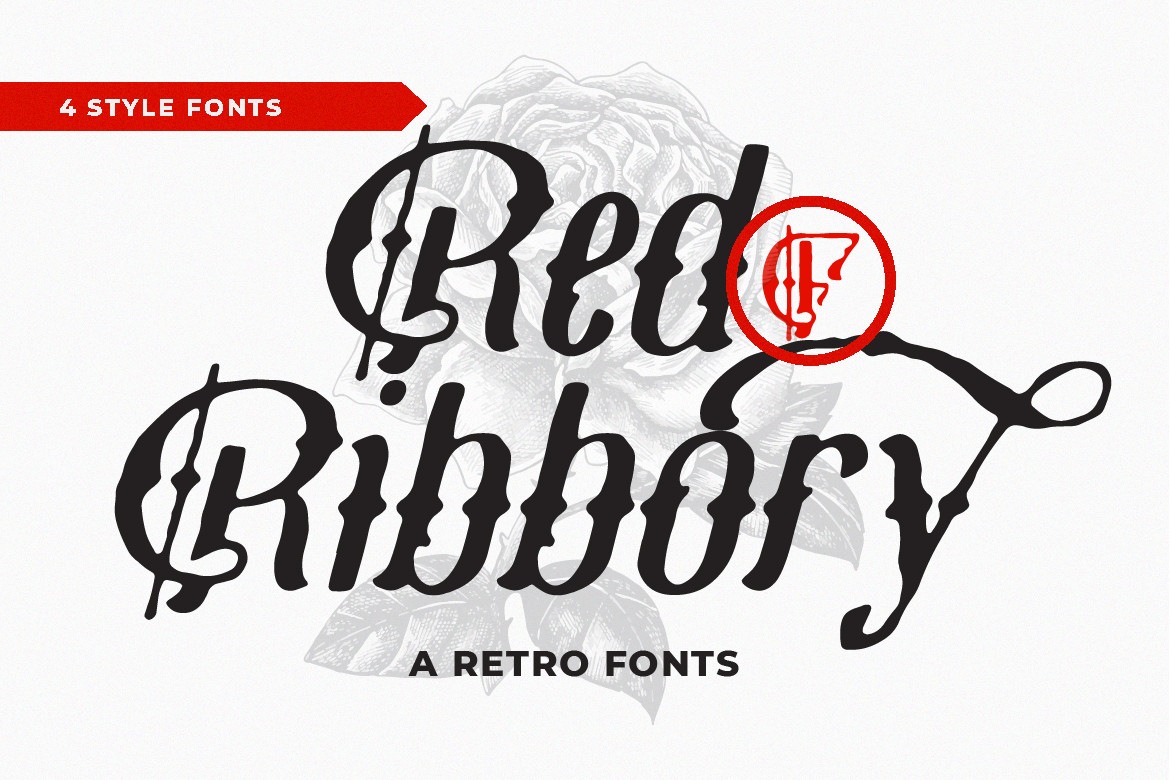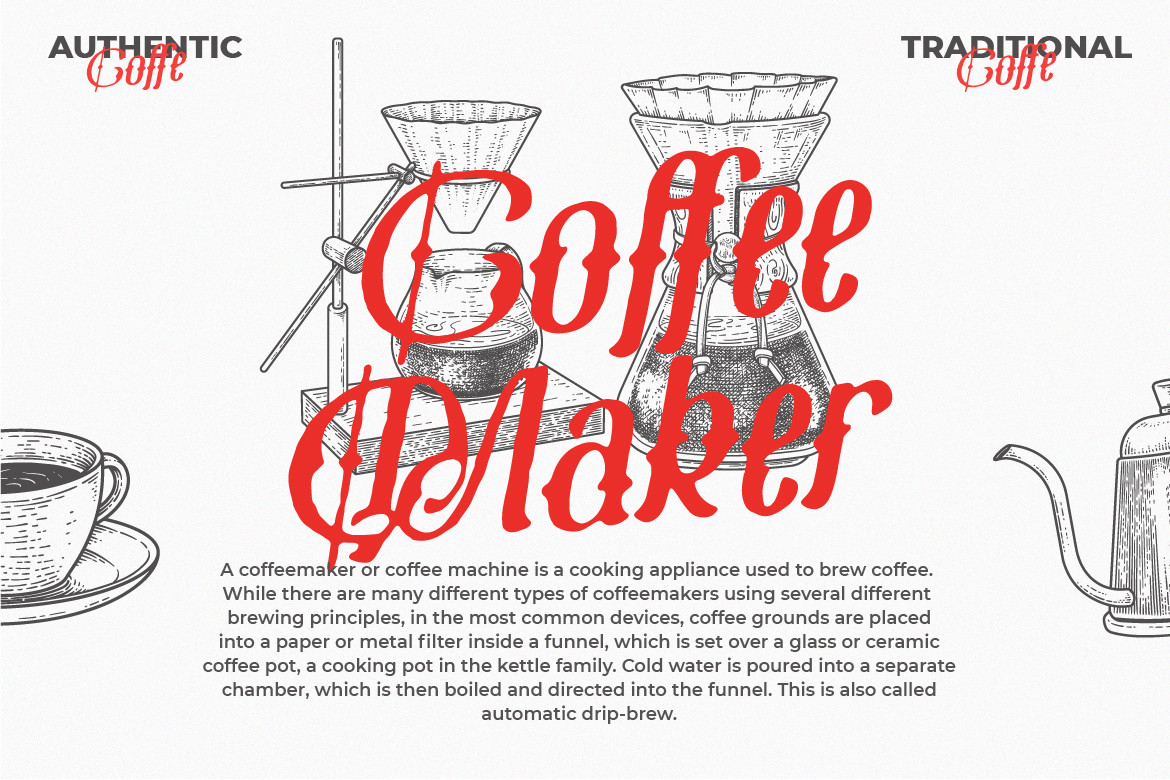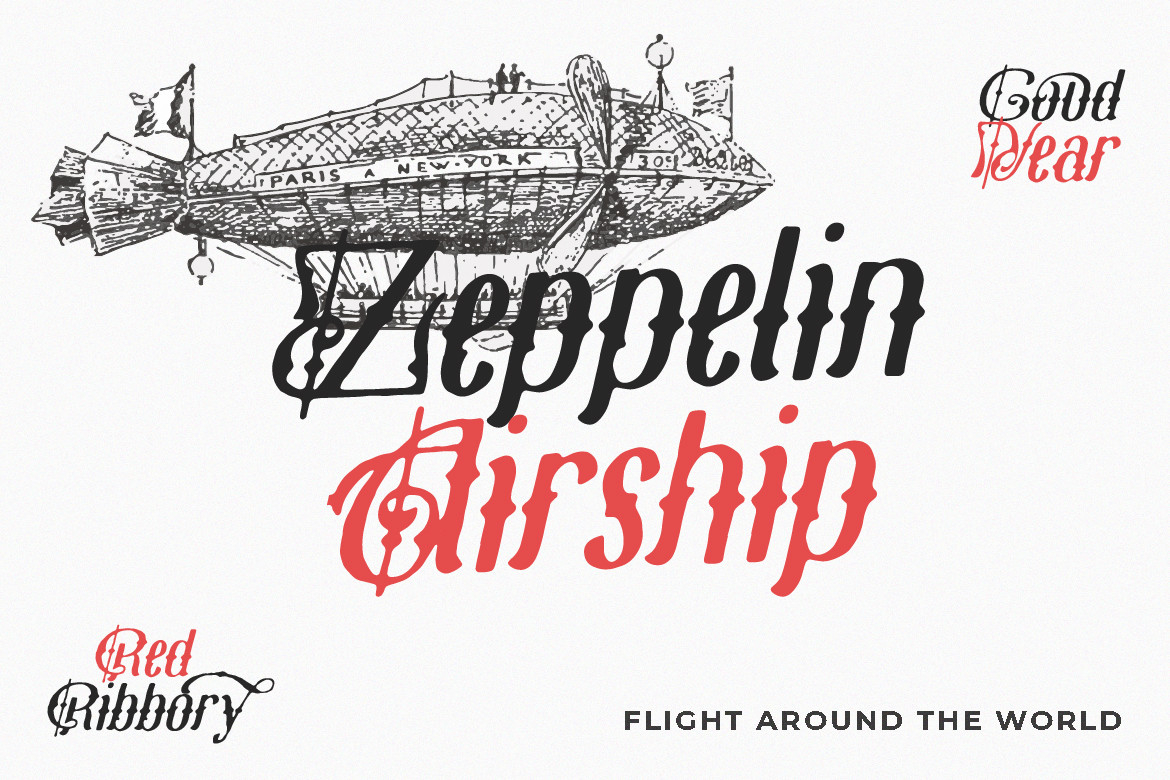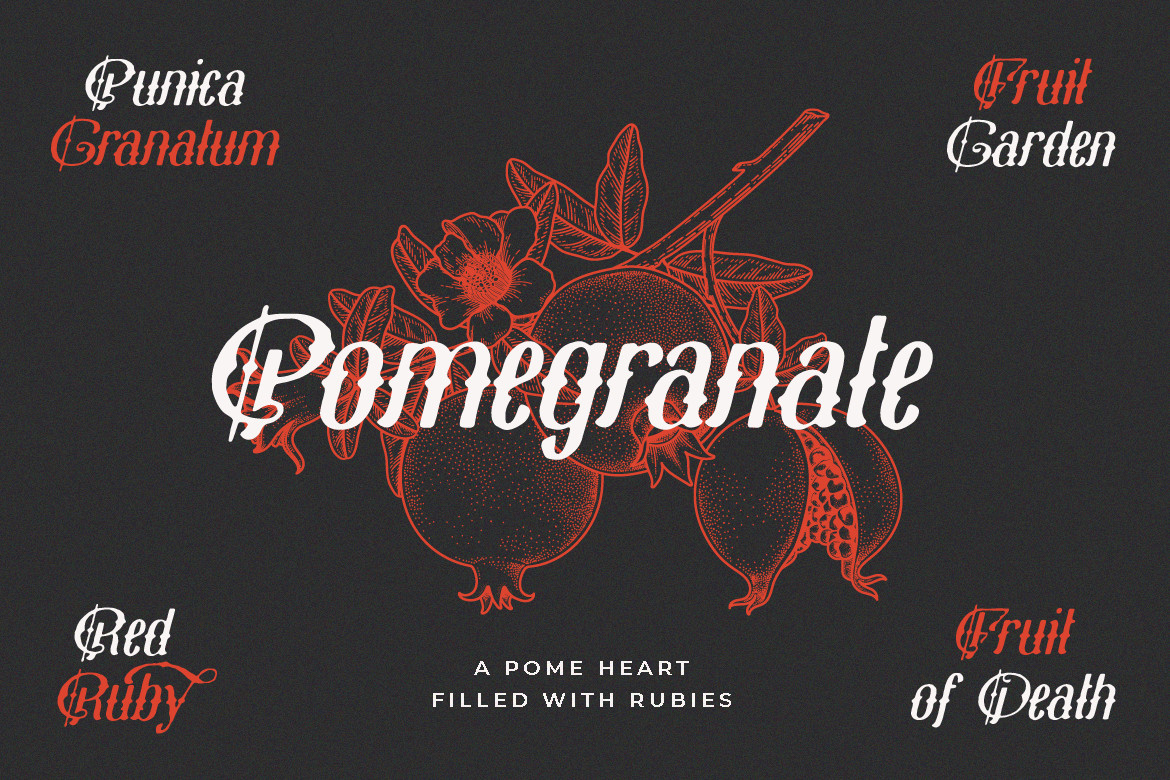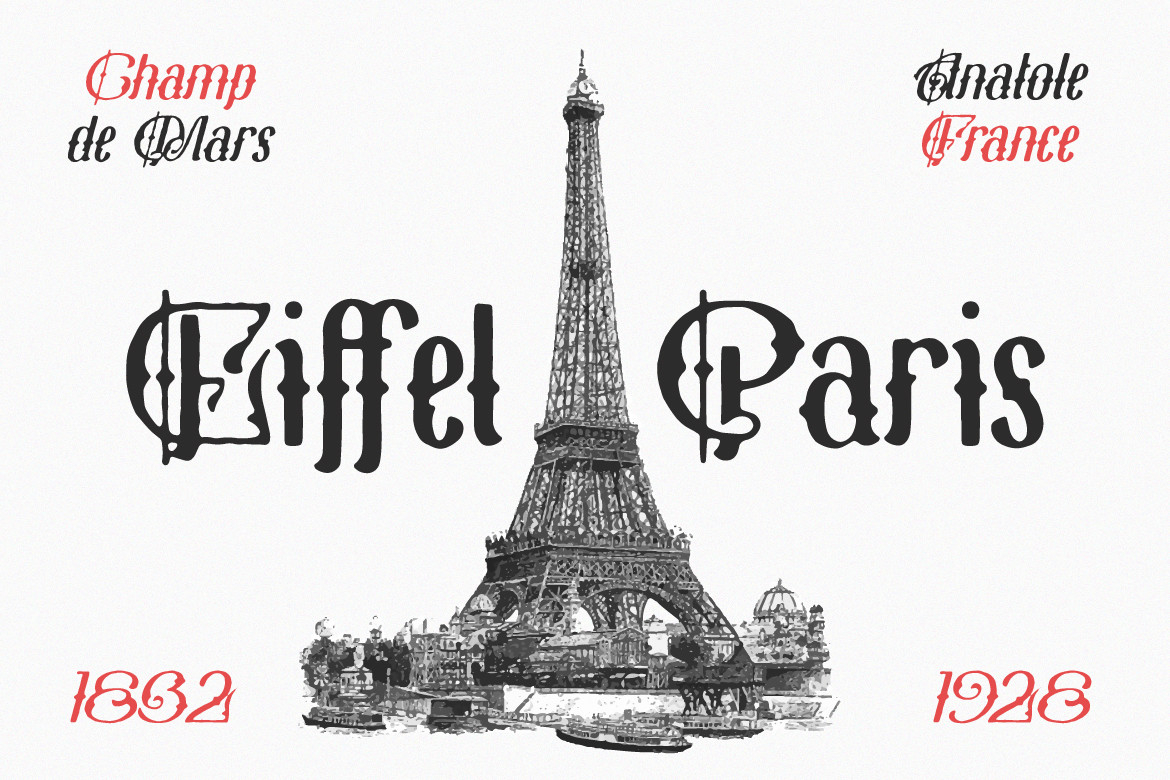
Red Ribbory Font
About Red Ribbory Font
Red Ribbory is a highly detailed blackletter font. No matter the topic, this font will be an incredible asset to your fonts’ library, as it has the potential to elevate any creation.